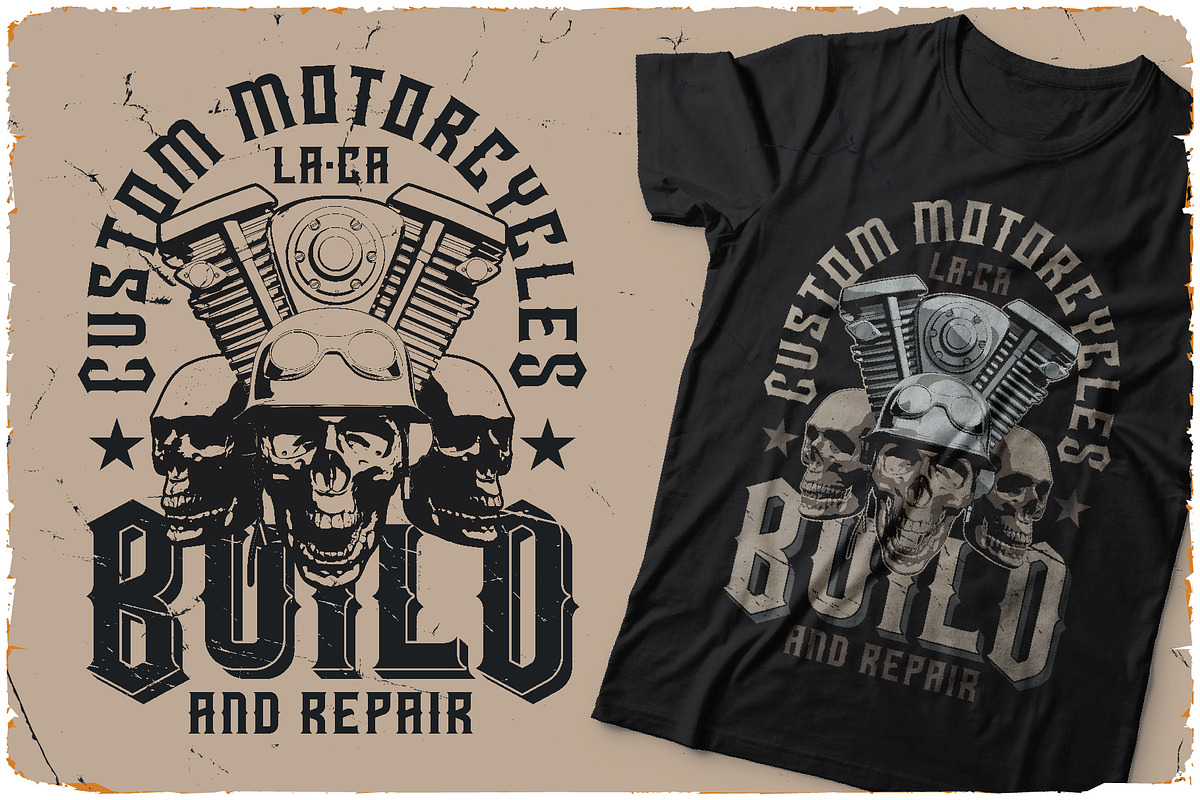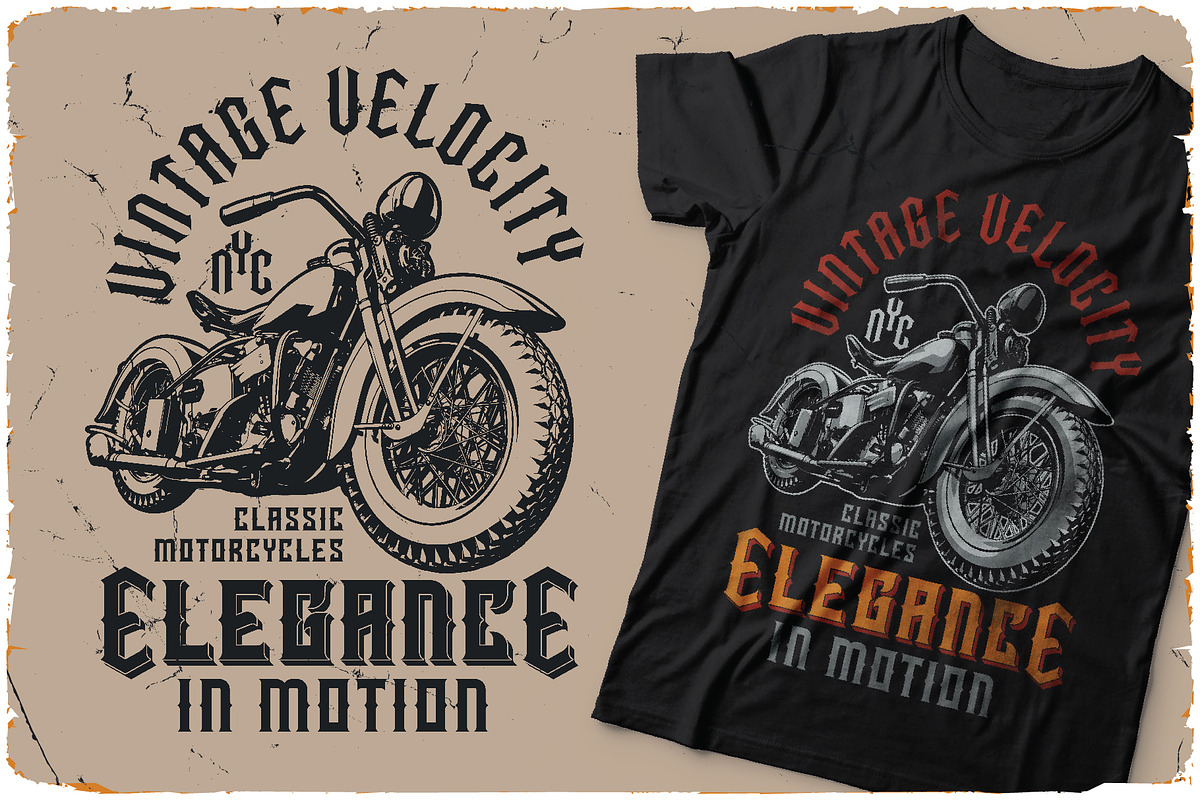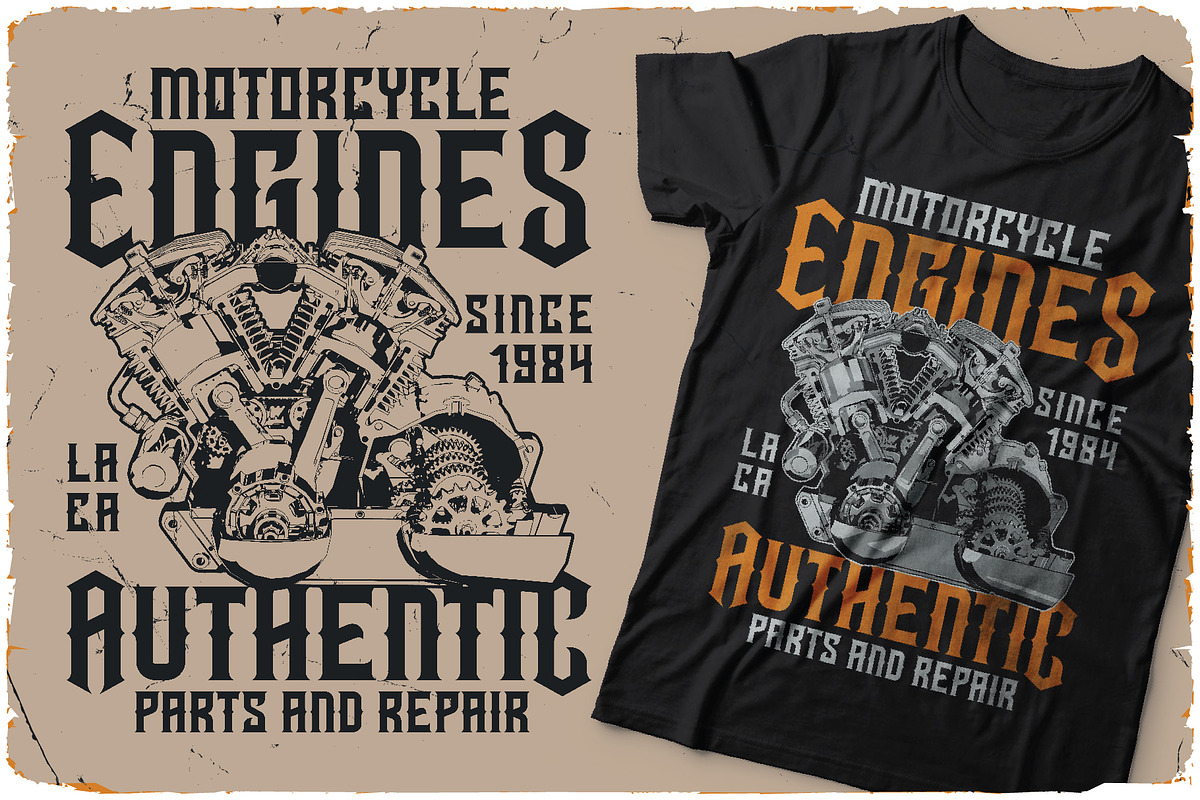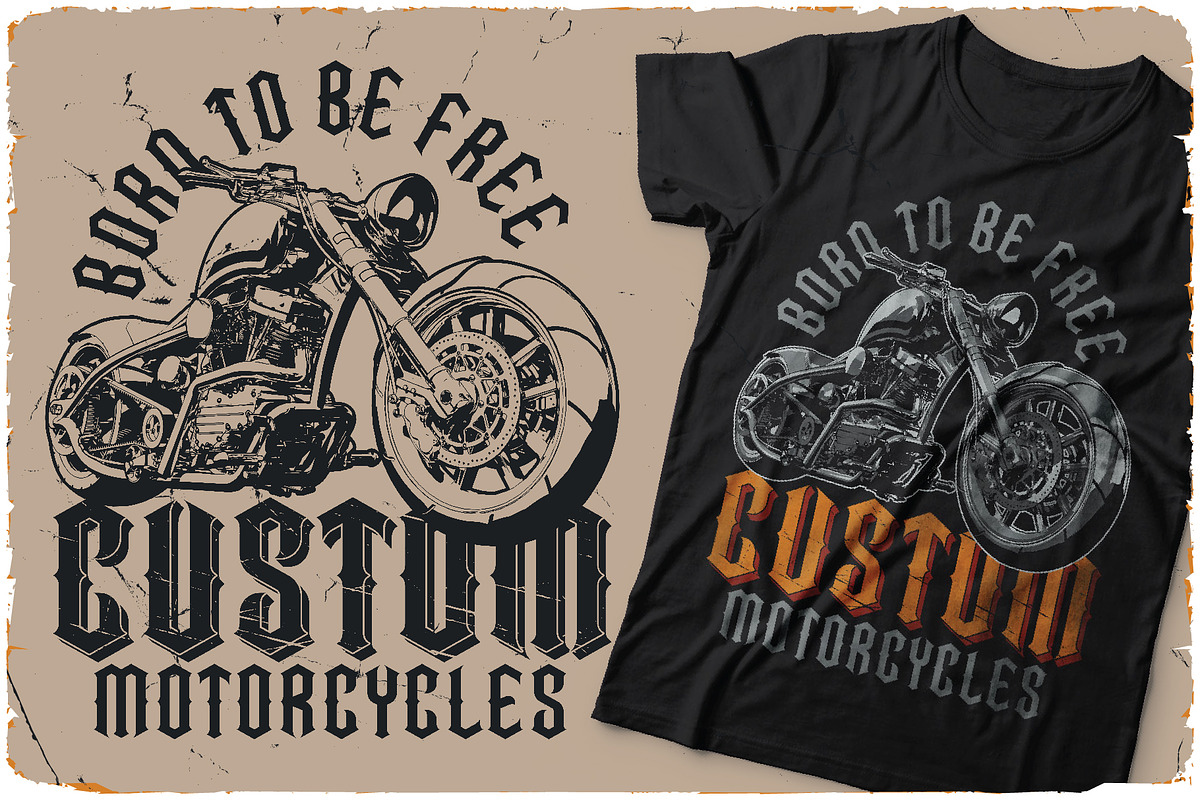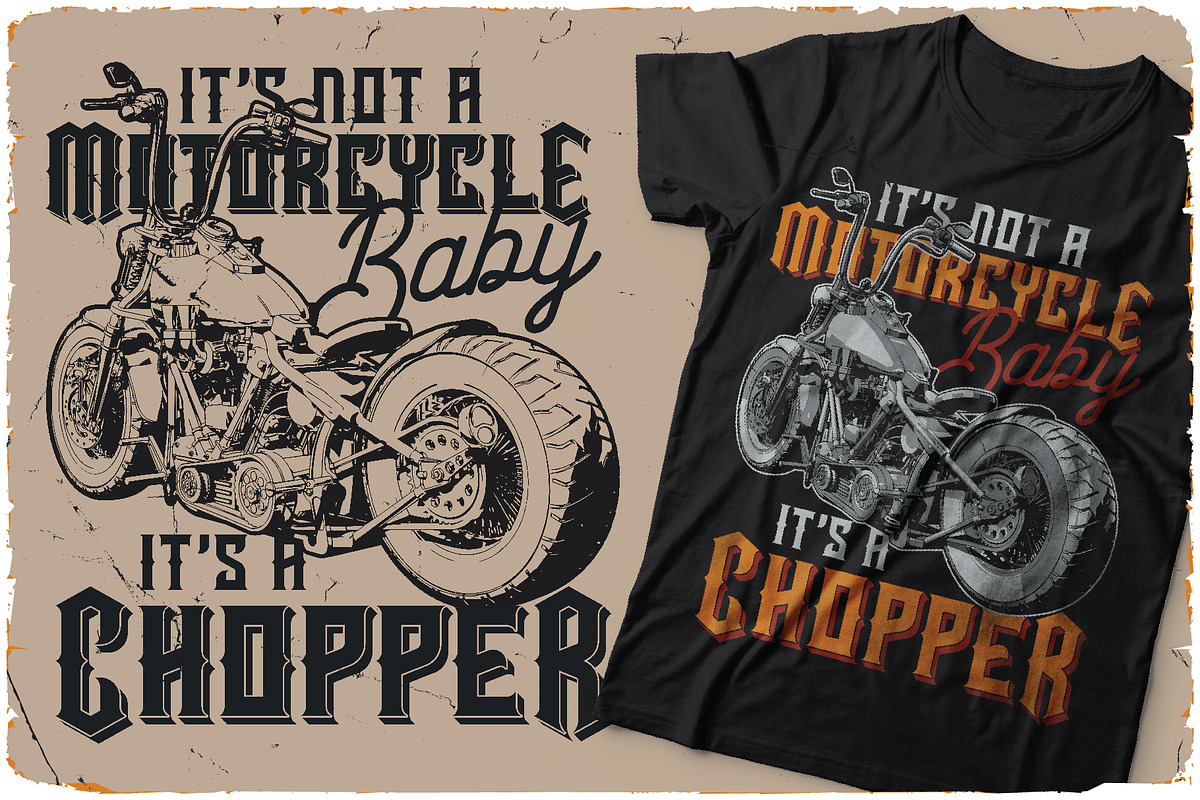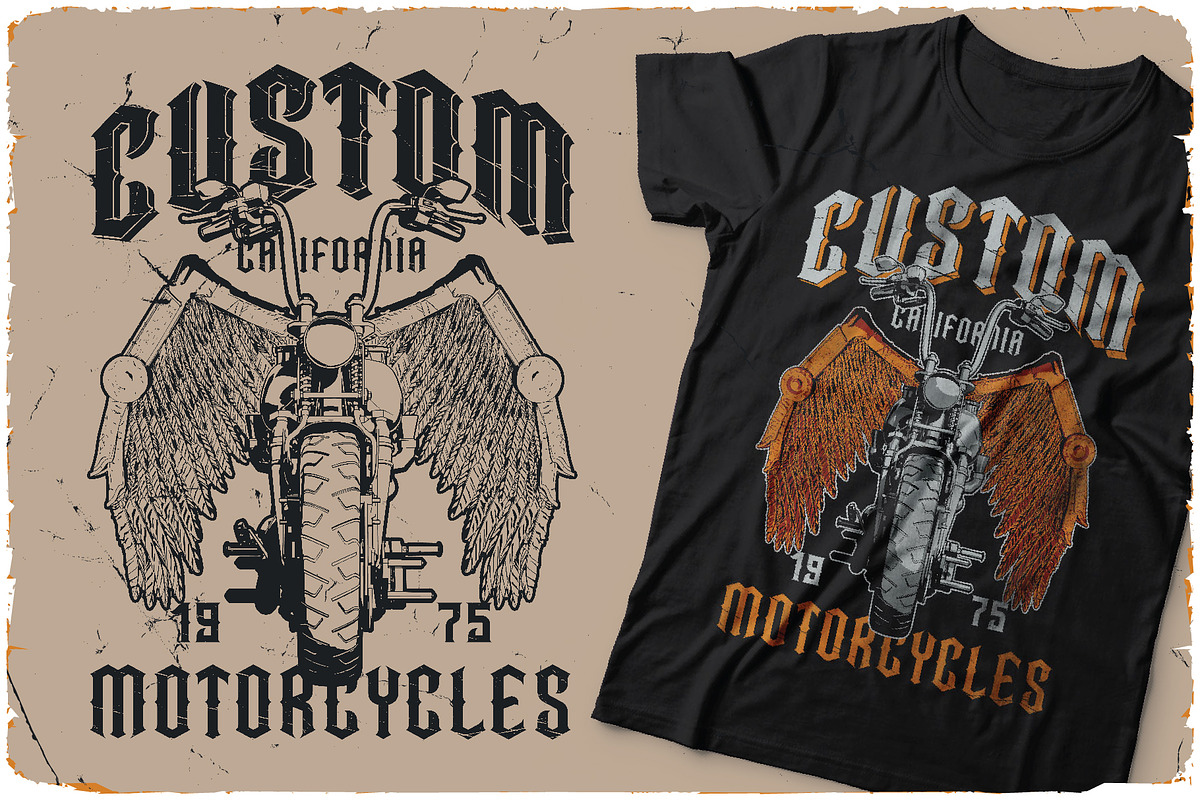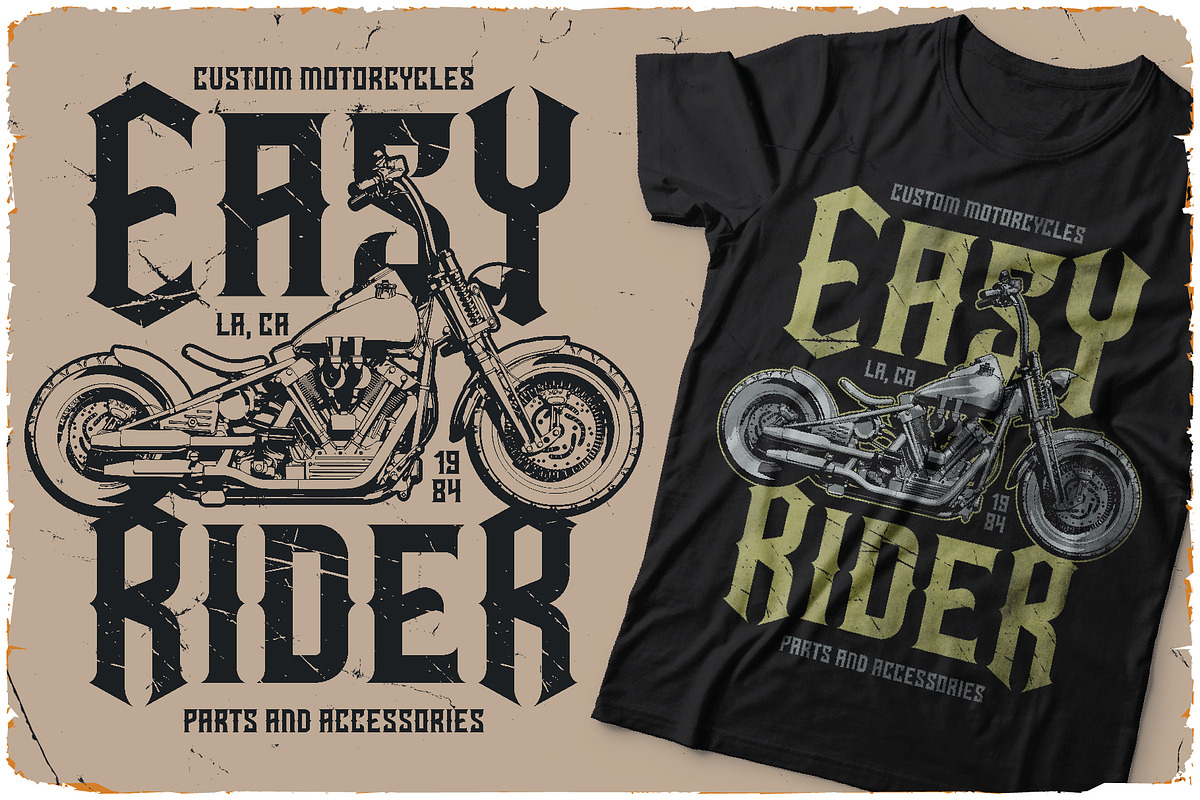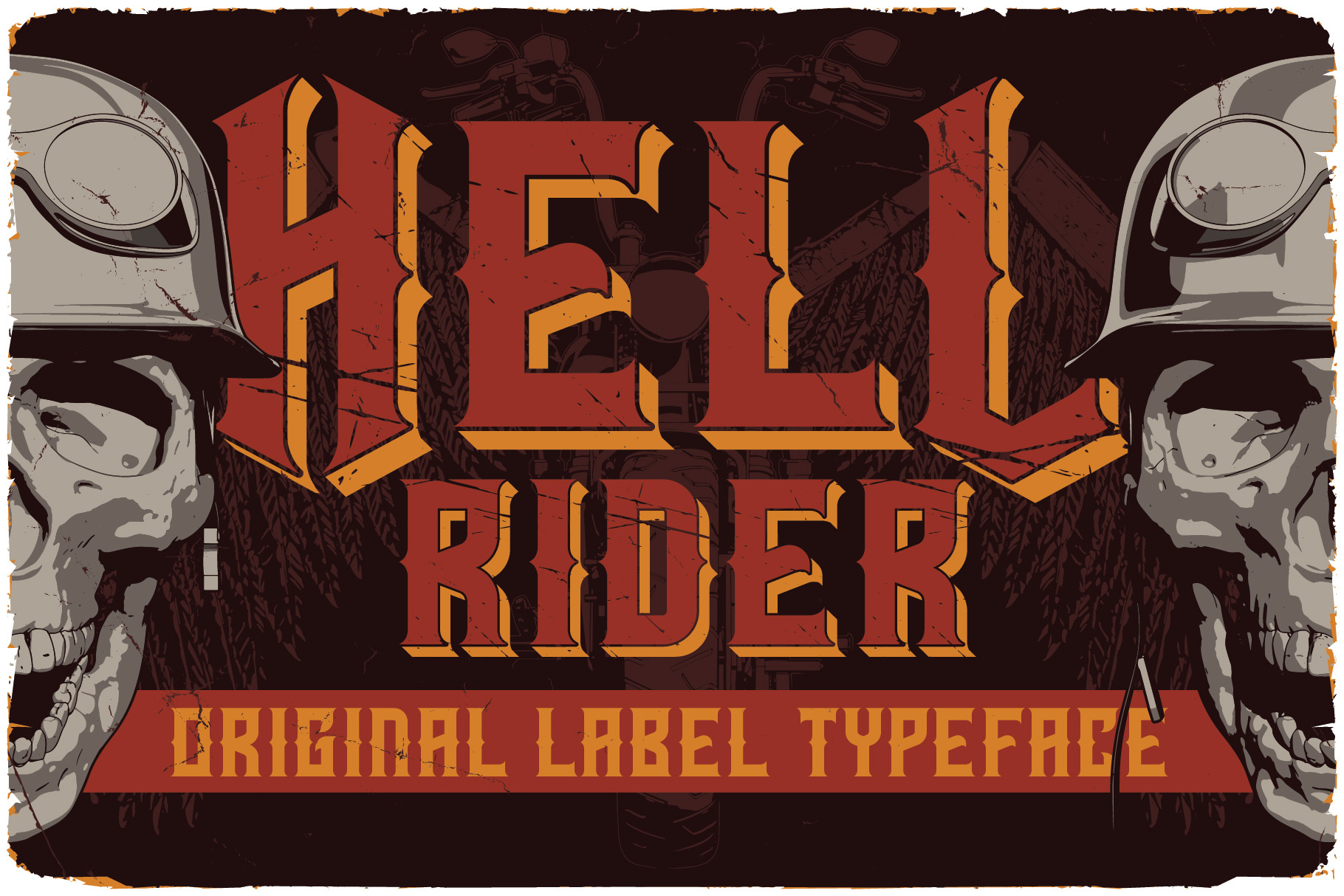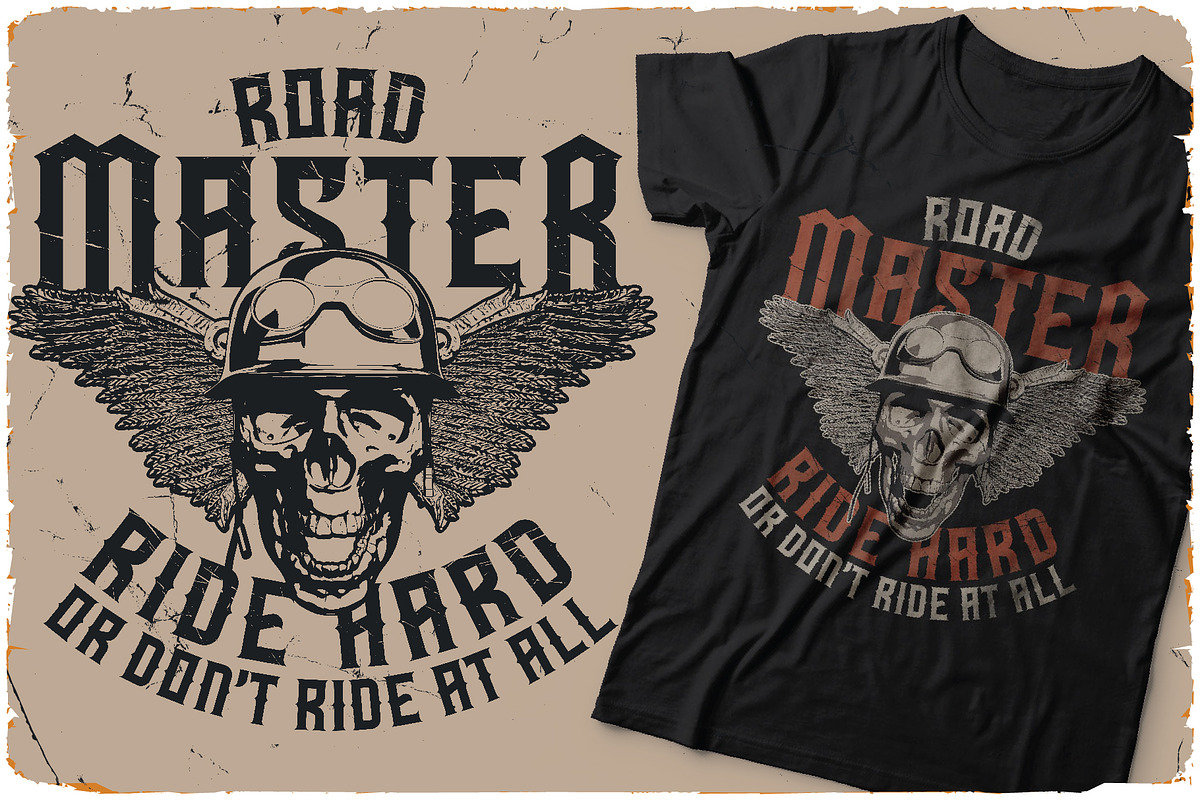
Hell Rider Label Font
Introducing vintage label font named Hell Rider. This font has an additional characters and multilungual (check out all available characters on previews). This font family has six styles: Regular, Shadow, Shadow FX, Scratch, Scratch Shadow, Scratch Shadow FX. This font will look good on any vintage styled designs like a poster, T-shirt, label, logo, etc.
- A lot of additional symbols and multilingual support.
- Layered styles: Shadow FX and Scratch Shadow FX.